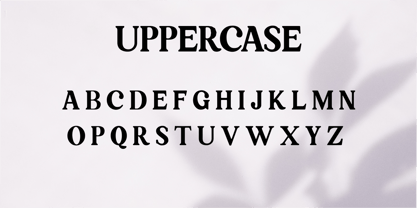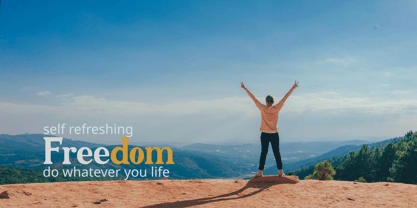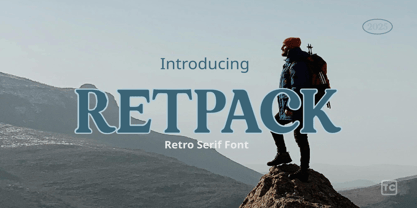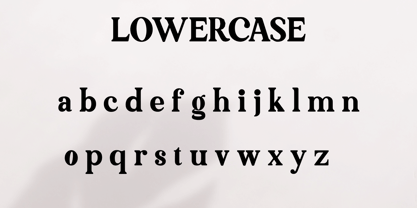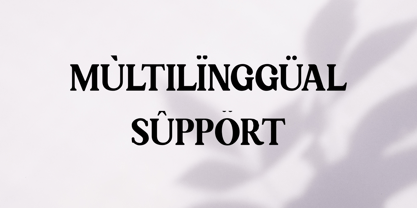
Retpack
La familia tipográfica Retpack fue diseñada por y publicada por Tubet Creative. Retpack contiene 1 estilos. Más información sobre esta familia
"Retpack" is a bold font that exudes an old-school charm, reminiscent of vintage signage and classic typography from the mid-20th century. Its sturdy, exaggerated letterforms and slightly rounded edges evoke a sense of nostalgia, making it ideal for projects that seek to capture a retro aesthetic. The font's strong presence commands attention while maintaining a friendly, approachable vibe, making it perfect for branding, posters, and any design that aims to celebrate the past with a modern twist. Whether used in headings or logos, Retpack delivers a distinctive flair that is both timeless and trendy.